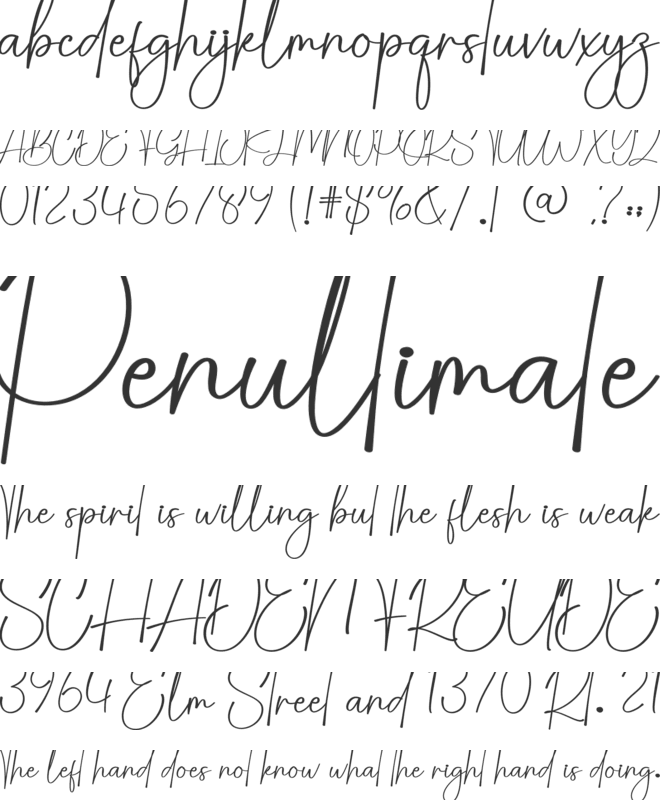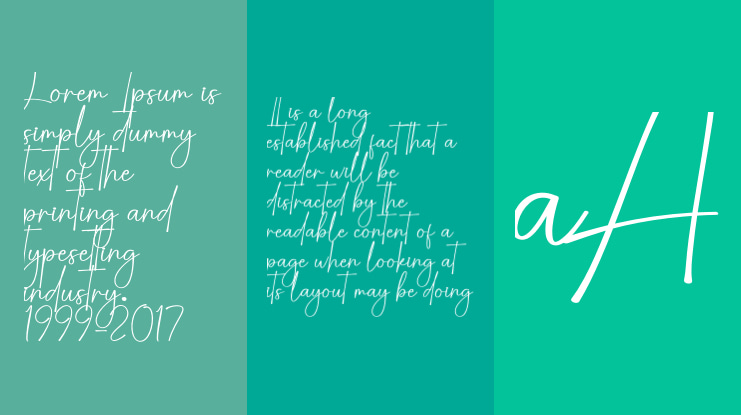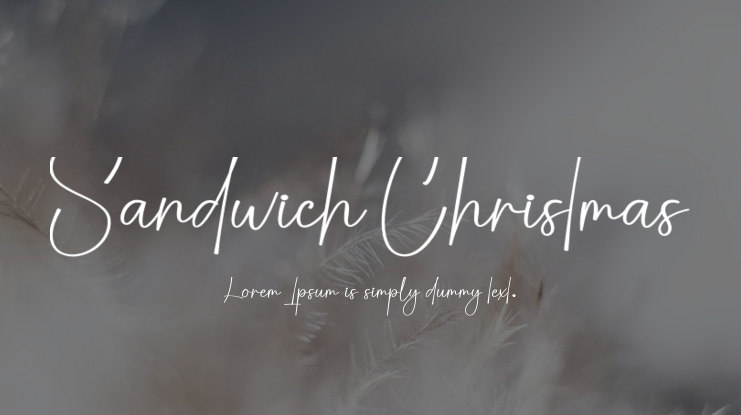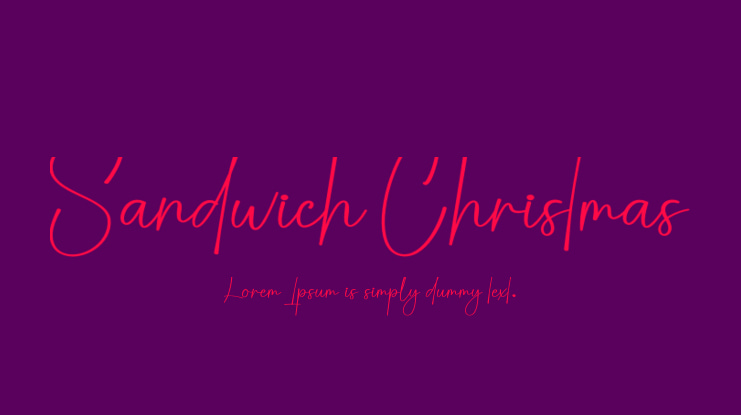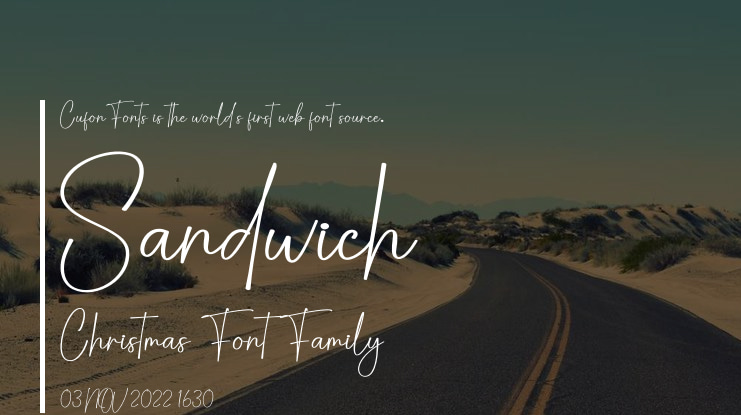
We offer special creative products designed to provide you with an extraordinary experience. Our latest styled letters are ideal for:
- Wall displays - Wedding invitations - Social media logos - Advertisements - Product packaging - Product designs - Labels - Photography watermarks - Invitations - Stationery - Any project that requires tasteful handwriting